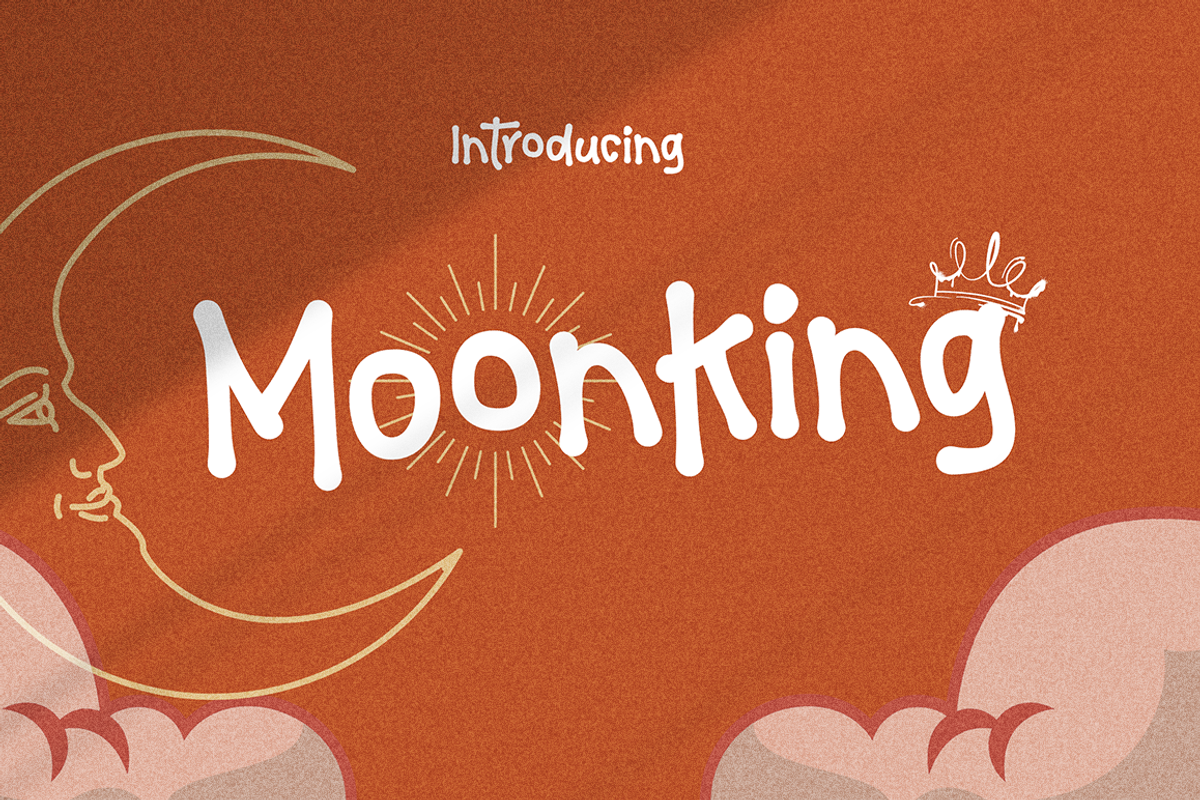
Moonking Font Free Download is a unique and whimsical typeface designed to stand out with its creative and flowing letterforms. Perfect for projects that need a touch of fantasy, mystery, or charm, Moonking is ideal for logos, branding, posters, packaging, and social media graphics. Its distinctive style adds character and personality to any design.
Whether you’re creating a brand with a playful or magical theme, or designing a whimsical poster, Moonking offers a fun, expressive look that captures attention.